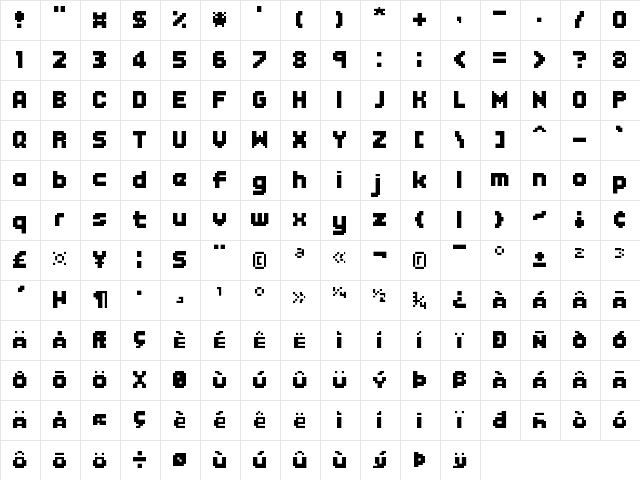
Endless Boss Battle Regular
| Designer | NAL |
Design Context for Endless Boss Battle Typeface
Endless Boss Battle takes a measured approach to typography — its balanced proportions and neutral character make it a reliable workhorse for both digital and print work.